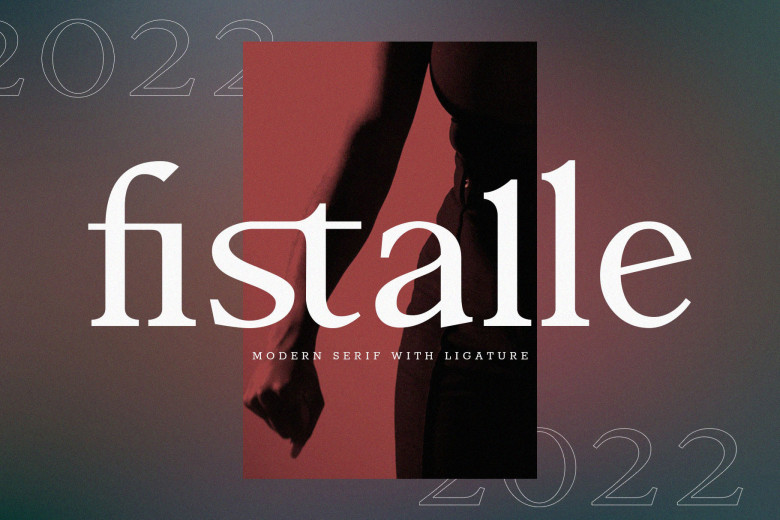
Fistalle is a fun character serif font with multiple ligatures to give you some extra creative work. This font is great for logo designs, social media, Movie Titles, Book Titles, short text even long text fonts and is great for your secondary text fonts with sans or serif. Create stunning masterpieces with this Fistalle font.
Fistalle Serif Font